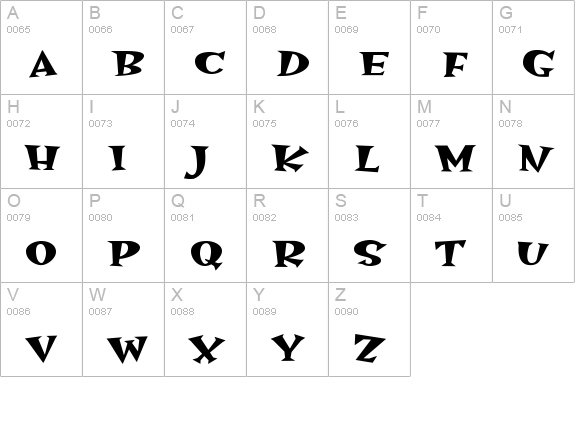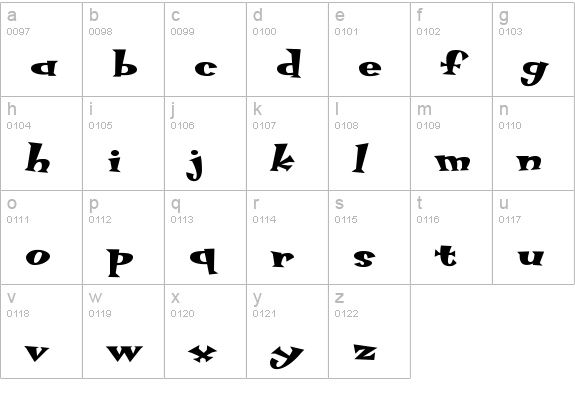
HotsyTotsy-Bold-MvB is a strong, high-contrast variant in the HotsyTotsy typeface family \xE2\x80\x94 well suited to headlines, attention-grabbing titles, and strong calls-to-action.
HotsyTotsy-Bold-MvB is a charming and lively display font that exudes a sense of whimsy and playfulness. With its bold and eye-catching design, this font is perfect for creating attention-grabbing headlines, posters, and branding materials. The unique shapes and intricate details of each letter give HotsyTotsy-Bold-MvB a distinctive flair that will make your designs stand out. The best part? HotsyTotsy-Bold-MvB is completely free to download at FontsMarket.com. Whether you're a seasoned designer looking to add a fun twist to your projects or a beginner exploring the world of typography, this font is a fantastic choice. So why wait? Download HotsyTotsy-Bold-MvB today and let your creativity shine!